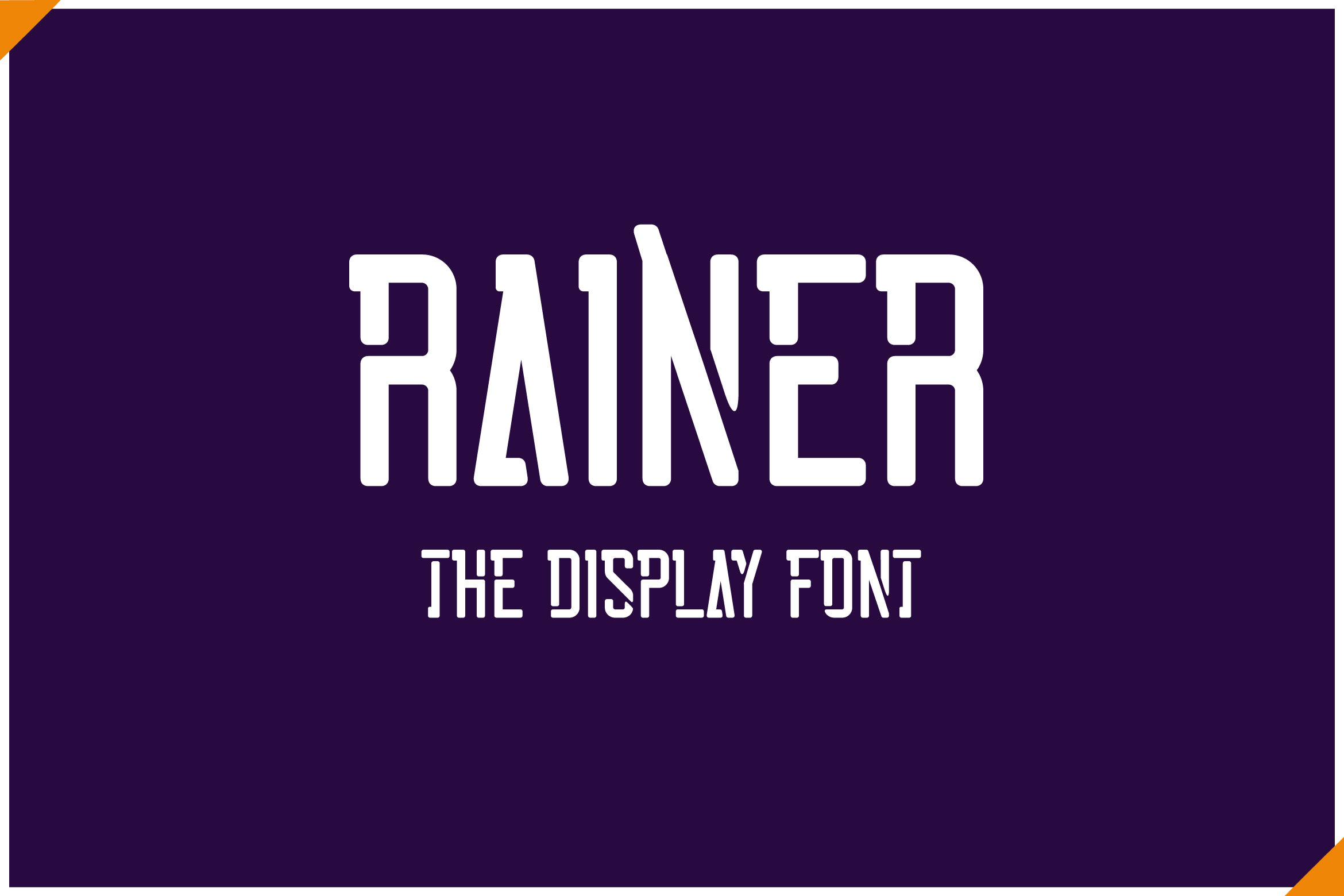
Rainer - Futuristic Display Font
If you are looking for a modern and bold display font, meet RAINER
Rainer is perfect for any works, such as your poster, card, book title, headline of news, banner, flyer, stationery and many more. It also can be used in Any scale work.